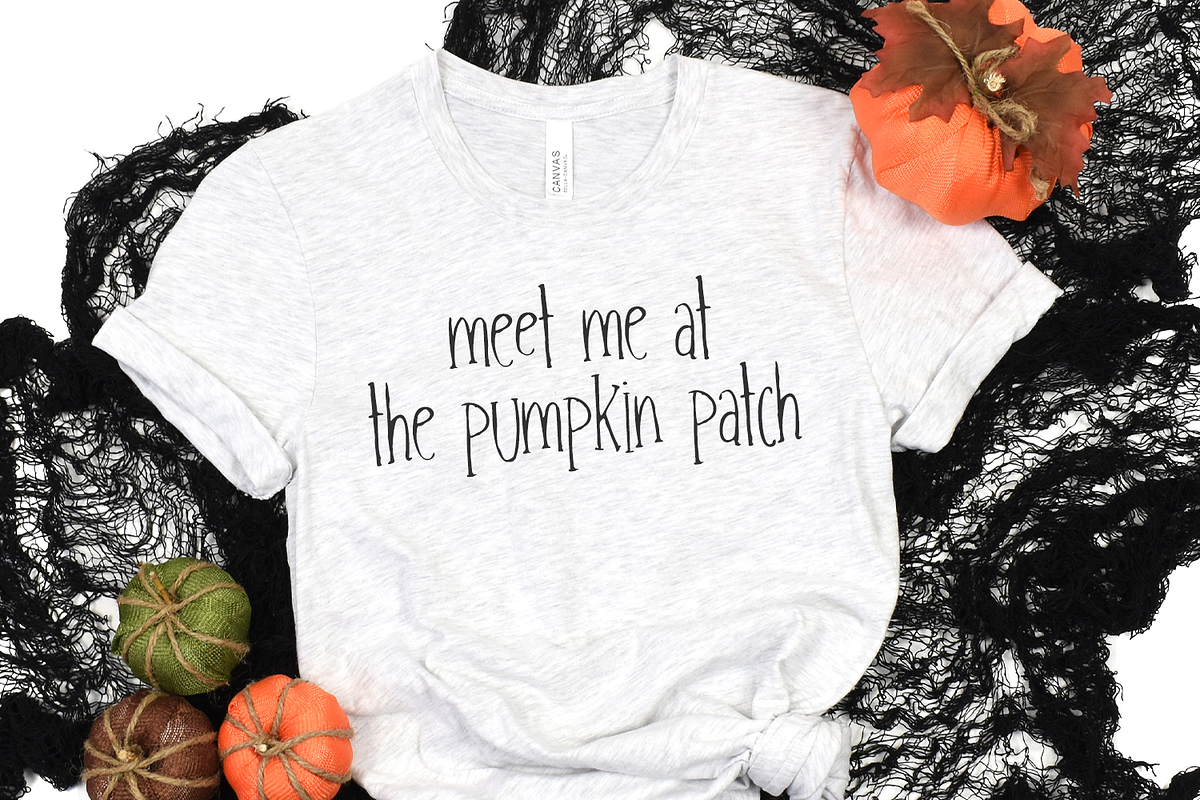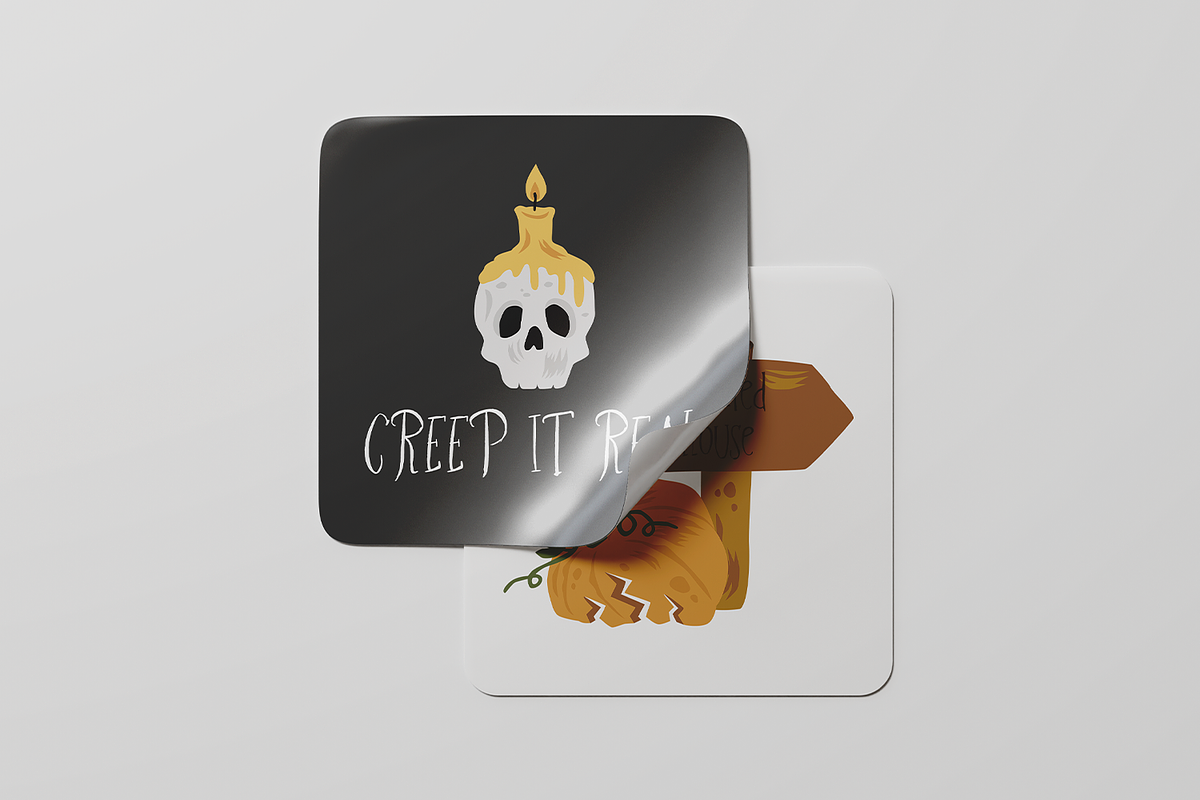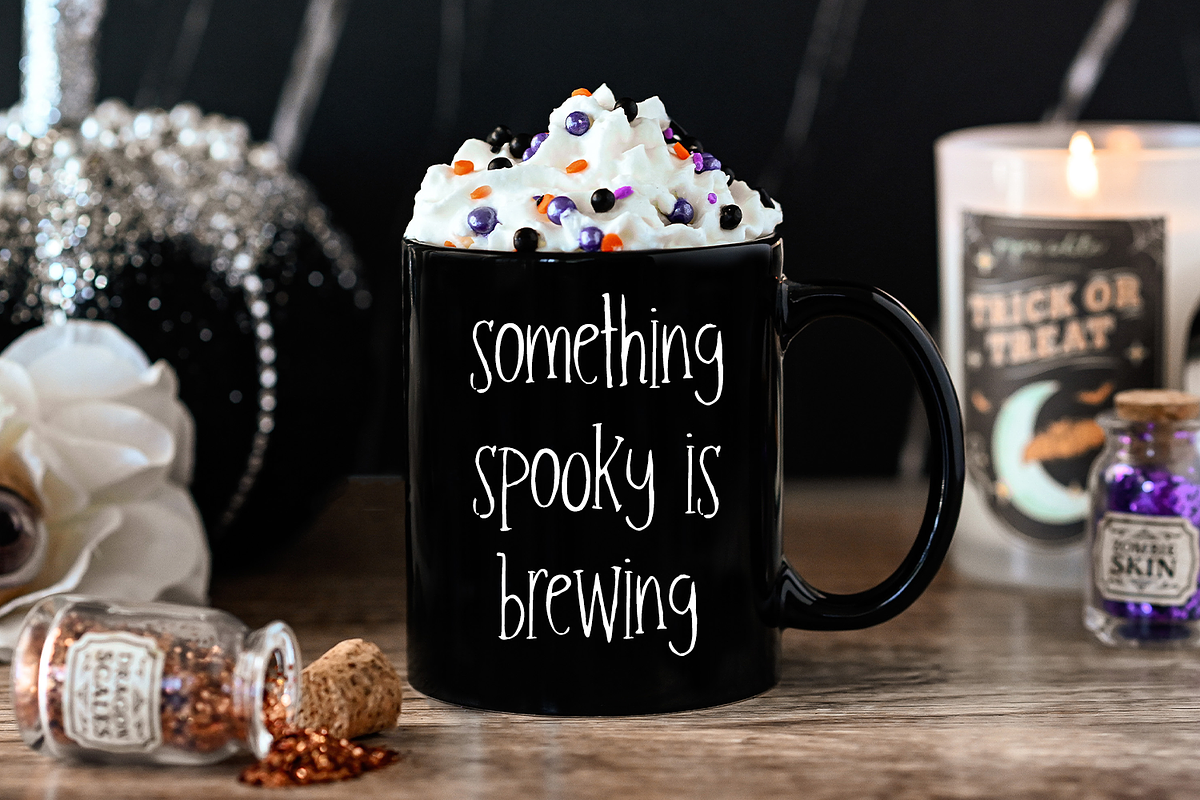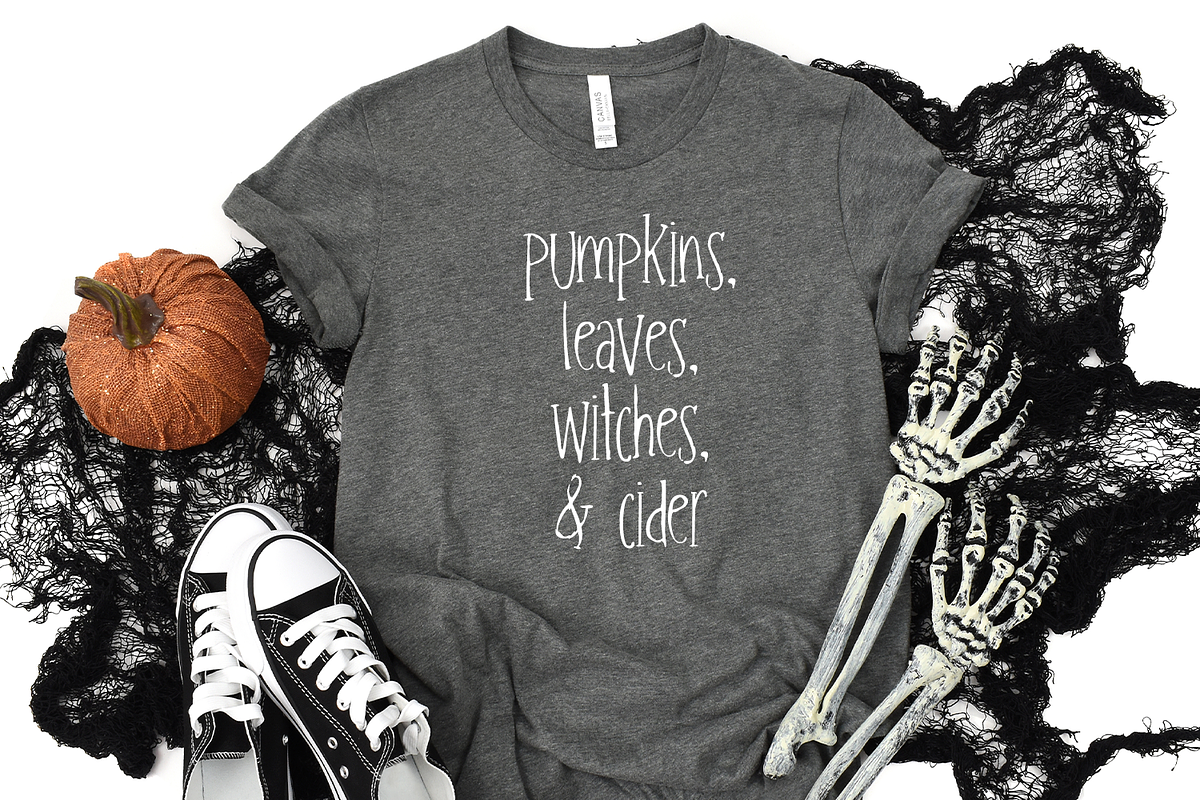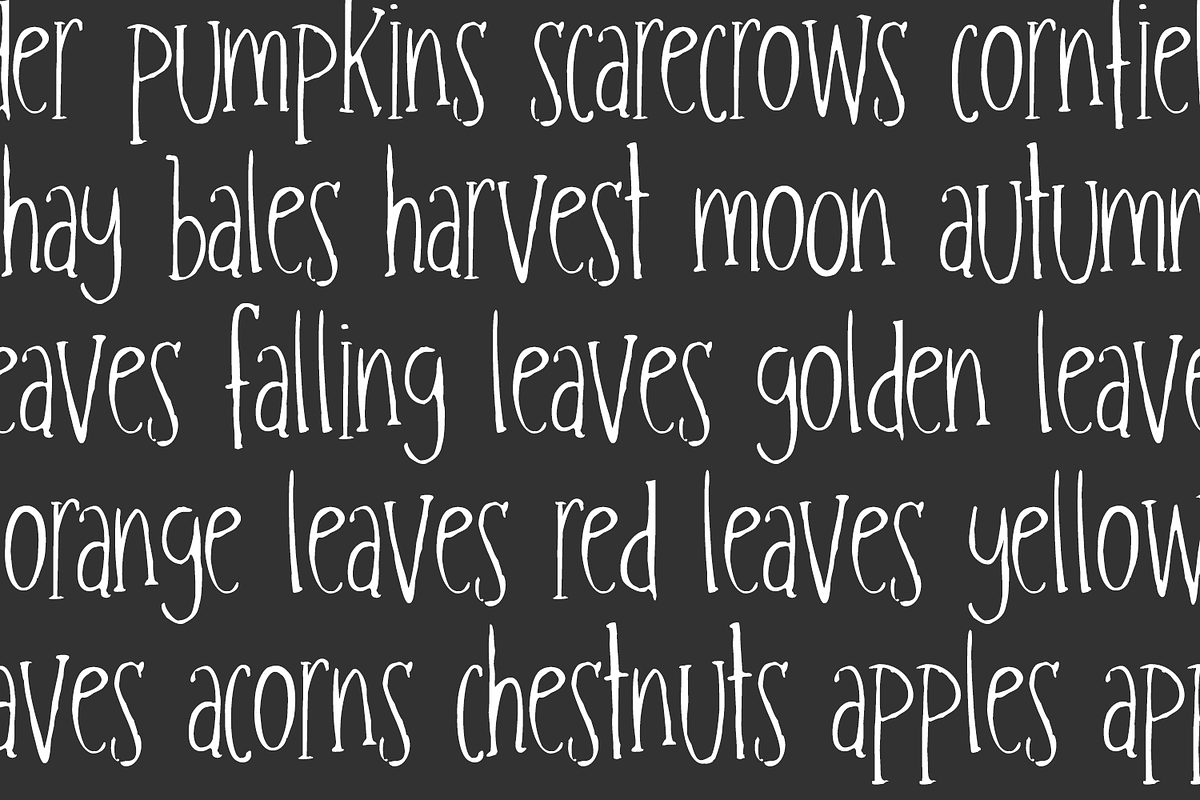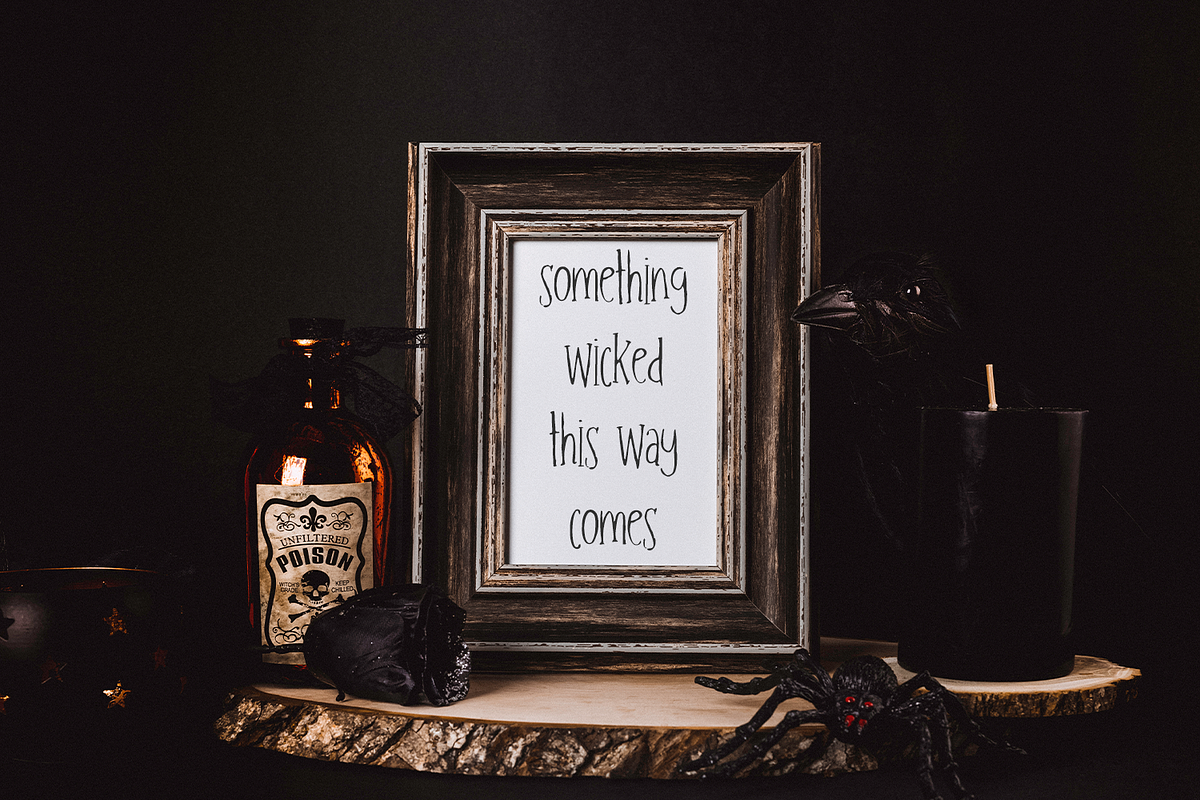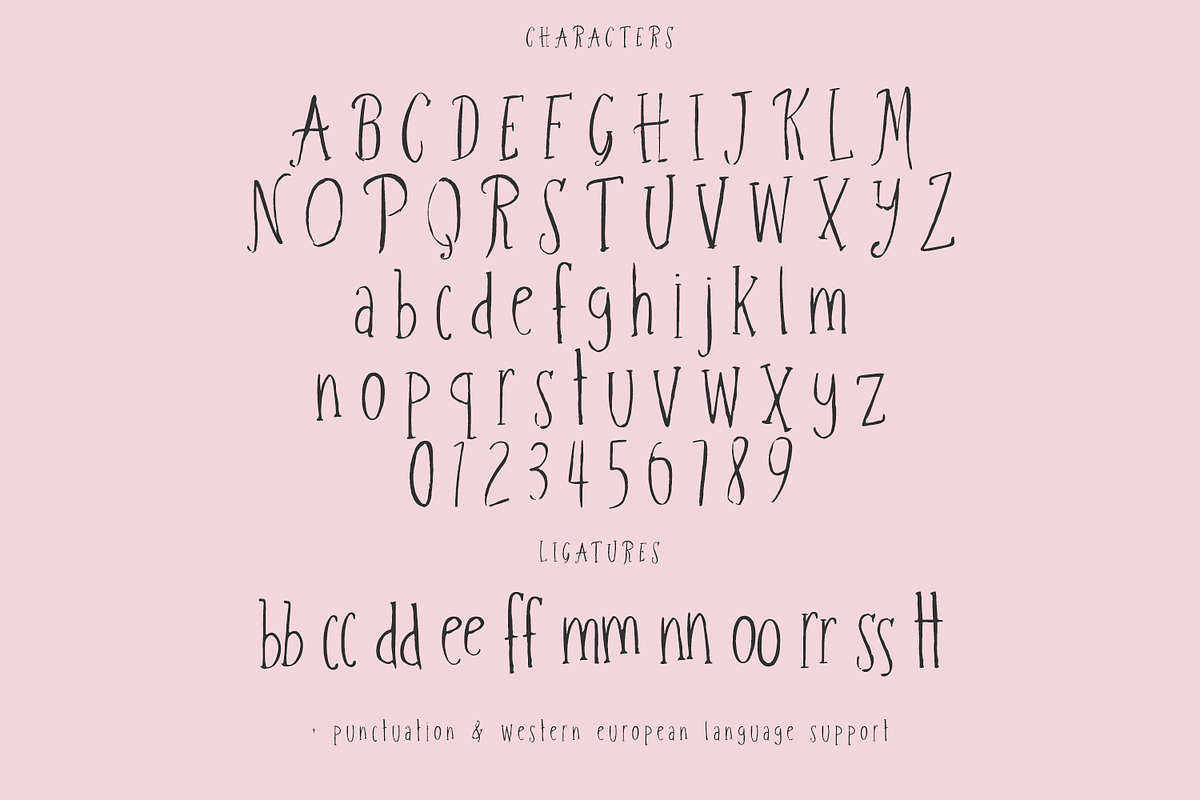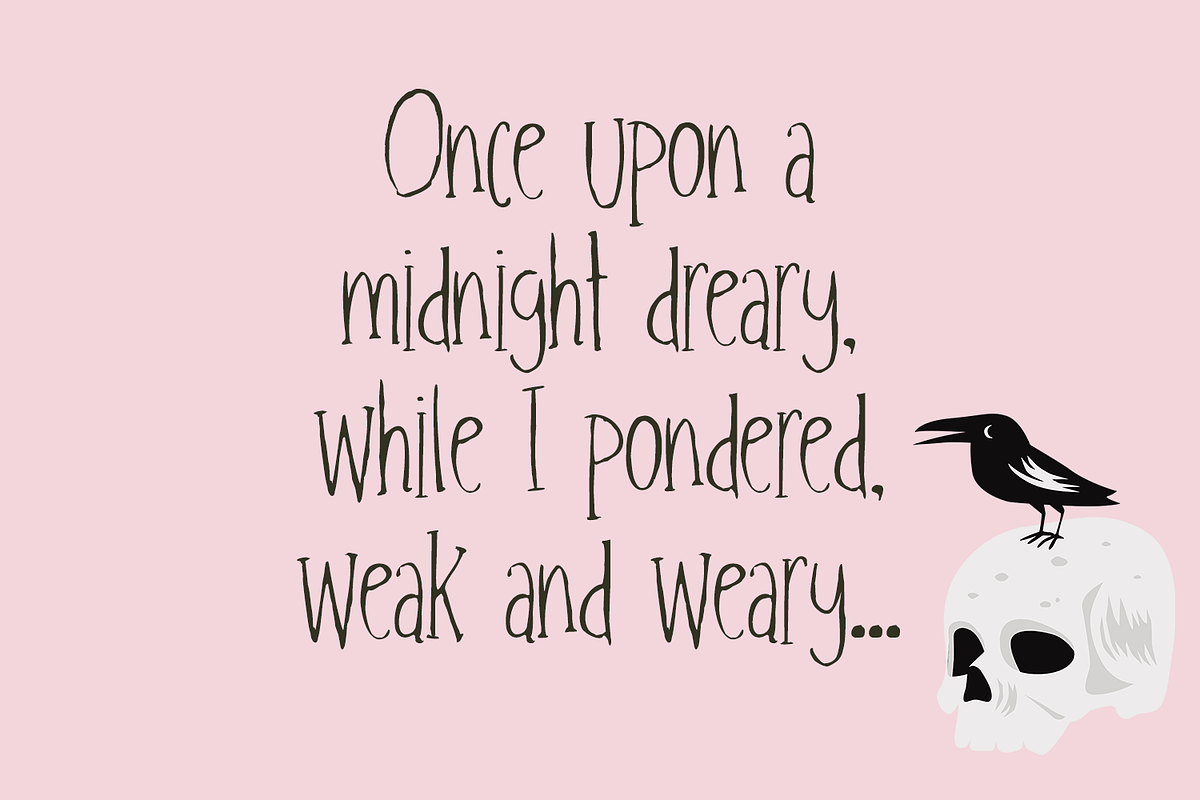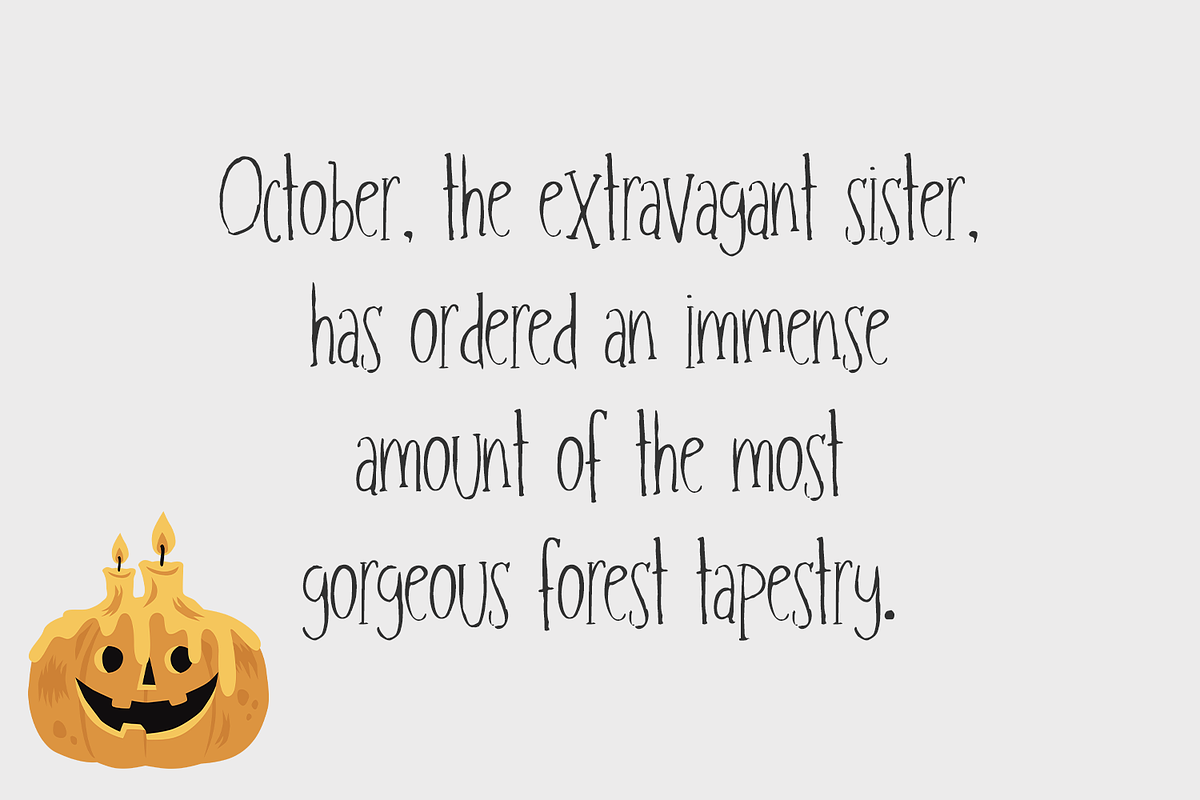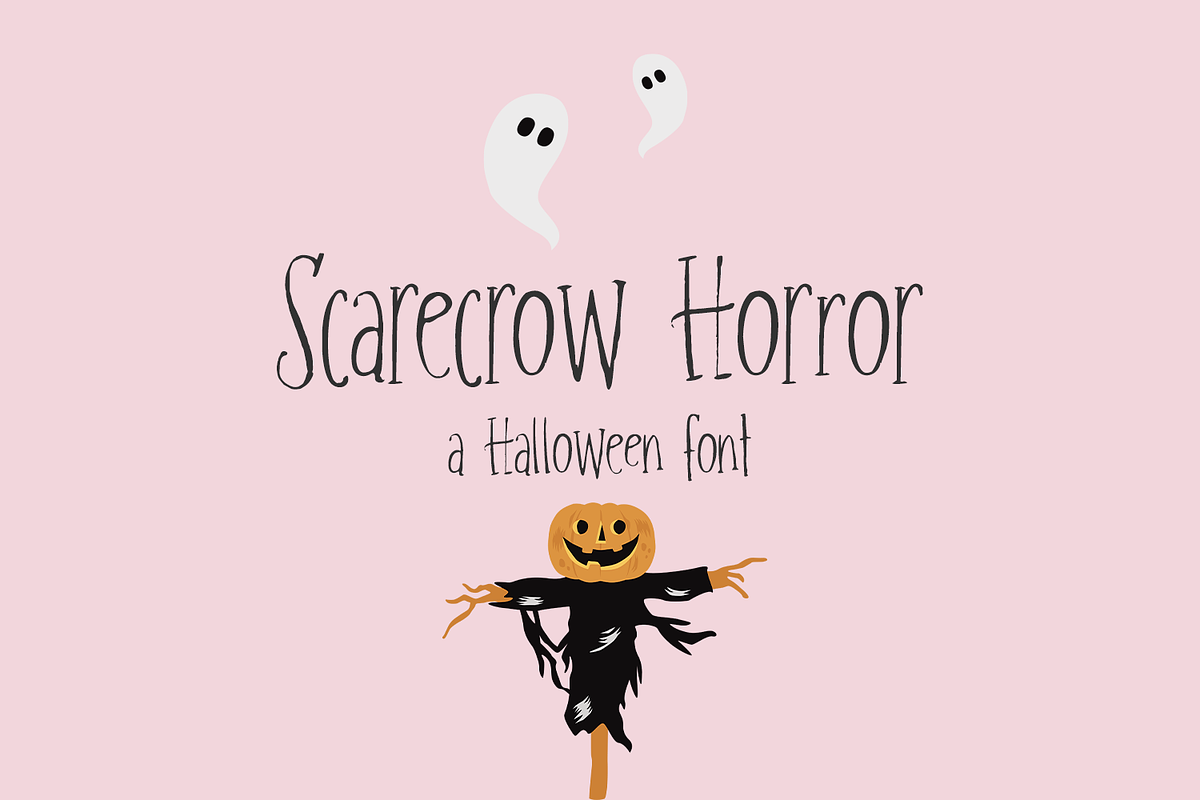
Scarecrow Horror Serif
Scarecrow Horror is a thin handlettered serif with a slightly irregular look & feel. It has a slightly uneven baseline, varied thickness in the strokes, and also includes some double letter ligatures to enhance the handwritten look and feel of your project. Scarecrow Horror is a good fit for Halloween themed items, as well as fall and winter type designs, as well. It has a bit of a rustic, farmhouse-type feel. Use Scarecrow Horror for shirts, mugs, stickers, farmhouse decor, signs, and other projects.
Scarecrow Horror Serif includes:
- full upper + lowercase characters
- numbers + punctuation
- PUA-encoding
- 11 ligatures - bb, cc, dd, ee, ff, mm, nn, oo, rr, ss, tt
- Western European language support - English, French, Spanish, Portuguese (Brazil), Portuguese (Portugal), Italian, German (Germany), German (Austria), Dutch, Danish, Swedish, Norwegian (Bokmål and Nynorsk), Finnish, Icelandic, Irish, Welsh